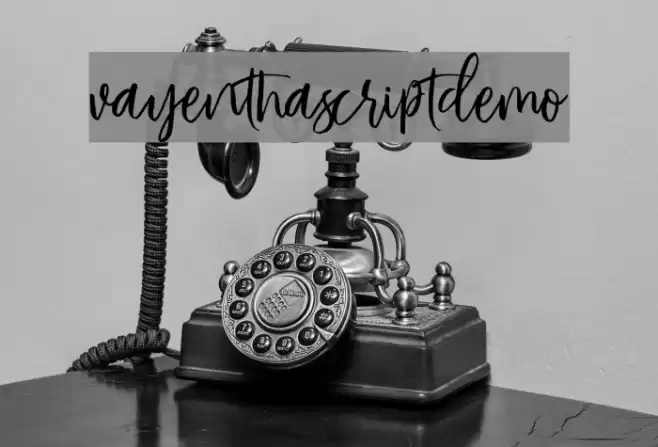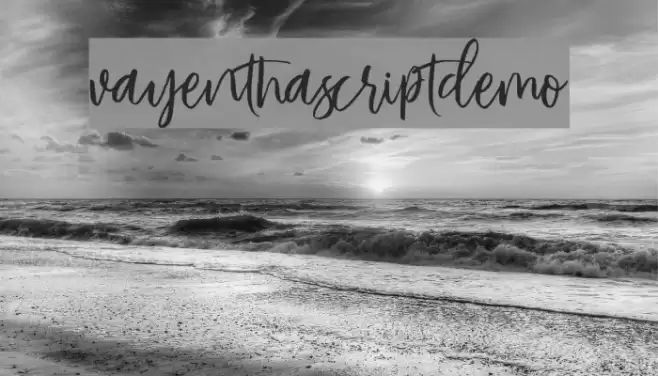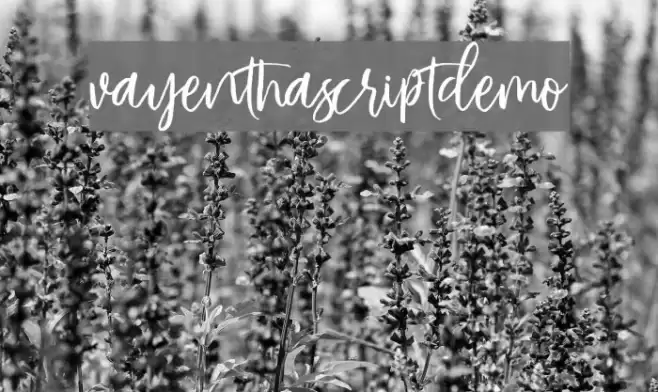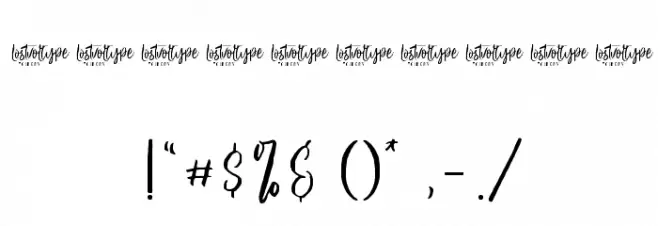
VayenthaScriptDemo Font
VayenthaScriptDemo Description
This script font exudes a casual and elegant charm, characterized by its flowing, handwritten style. The letters are connected in a smooth, cursive manner, giving it a natural and personal touch. The strokes vary in thickness, adding a dynamic and lively feel to the text. The uppercase and lowercase letters are well-balanced, maintaining readability while showcasing a stylish flair. This font includes a full set of letters, numbers, and a variety of special characters, making it versatile for different design needs. Its playful yet sophisticated appearance makes it suitable for projects that require a touch of personality and elegance.
A flowing, elegant script font with a casual handwritten style from Uncategorized fonts.
- Proposed Projects: Ideal for wedding invitations, greeting cards, branding, and social media graphics.
- Use Case: Logos, Invitations, Social Media